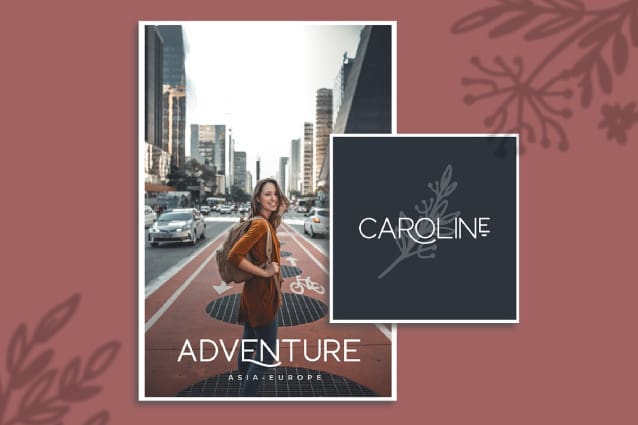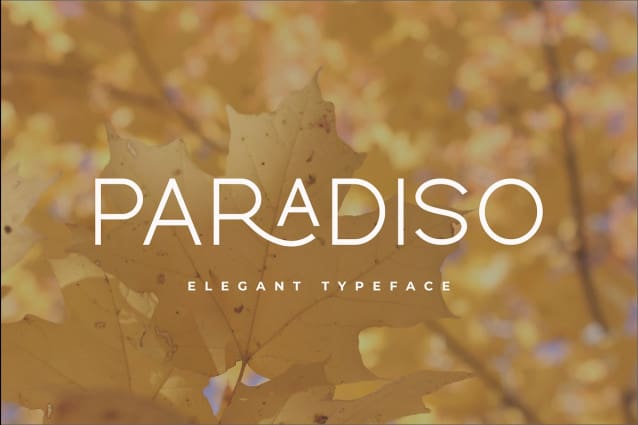
Paradiso Font
Paradiso Font – An elegant font with many beautiful alternatives that you can easily combine. This font is clean and elegant for logos, branding, wedding invitations, quotes, advertising, etc.
Paradiso is equipped with all caps, punctuation, number, beautiful and elegant alternate, this font is also multilingual language. paradiso come with 4 weight, you can use according to your imagination. let’s create with paradiso.